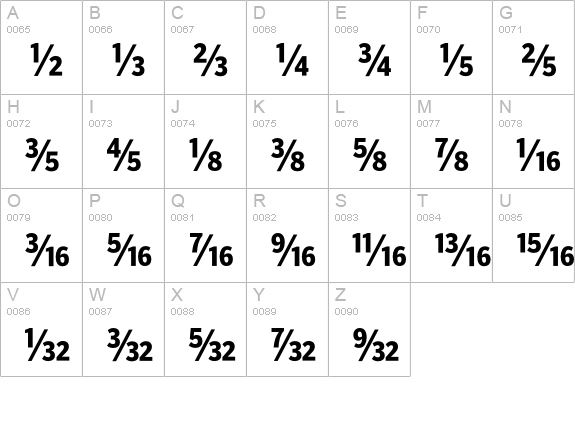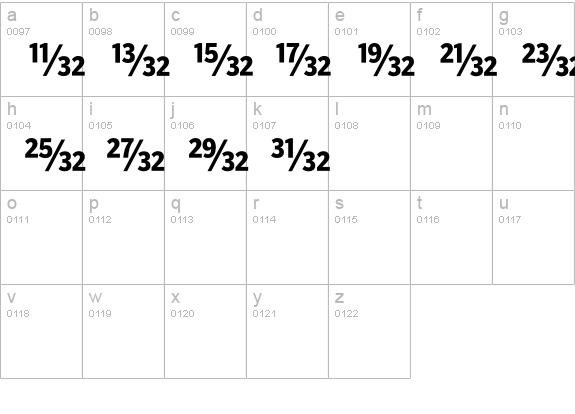
PoynterAgate-CondFracThree Font Details
PoynterAgate-CondFracThree is a sleek and modern font that exudes sophistication and elegance. Its condensed style adds a touch of refinement to any design project, making it perfect for headings, titles, and other display purposes. The sharp, angular letterforms of PoynterAgate-CondFracThree command attention and leave a lasting impression on the viewer. What's even better is that PoynterAgate-CondFracThree is available for free download at FontsMarket.com. This means you can enhance your designs with this stunning font without having to spend a dime. Don't miss out on the opportunity to add PoynterAgate-CondFracThree to your font library and elevate your design projects to new heights. Download it today and let your creativity shine with this exquisite typeface.